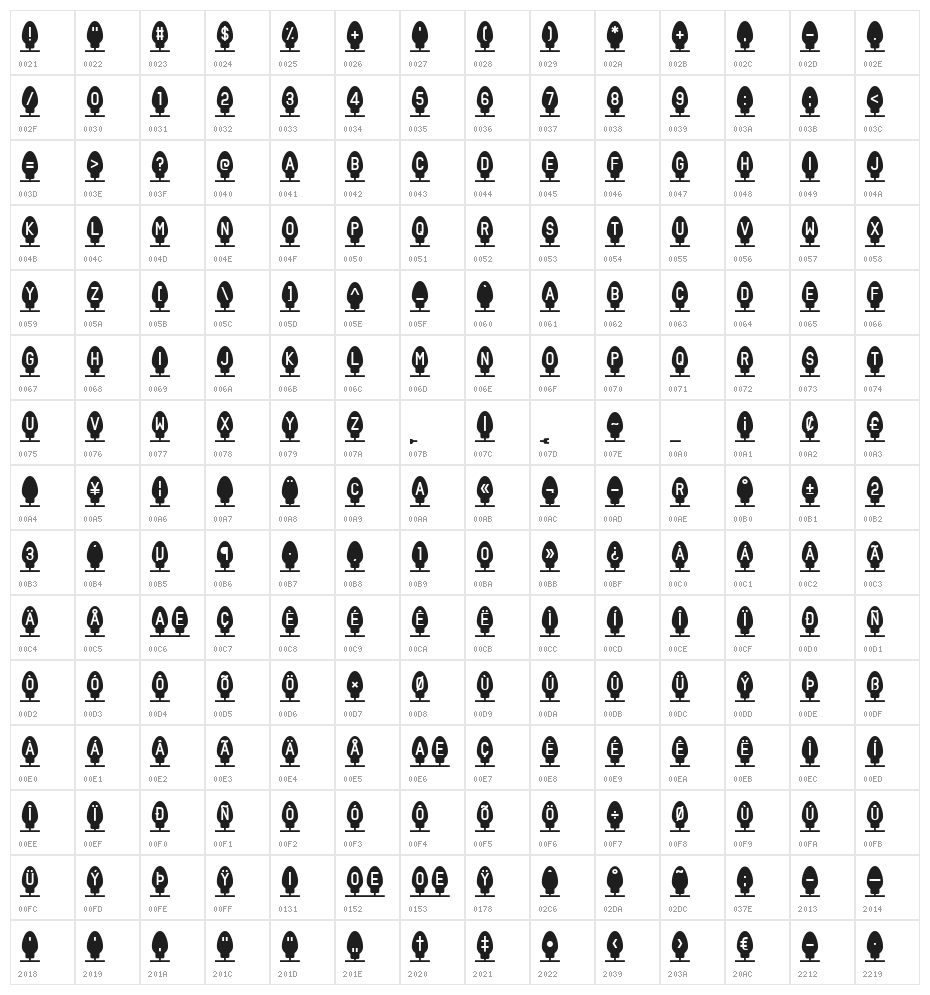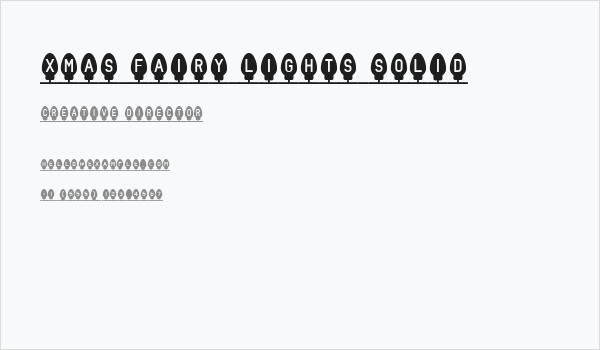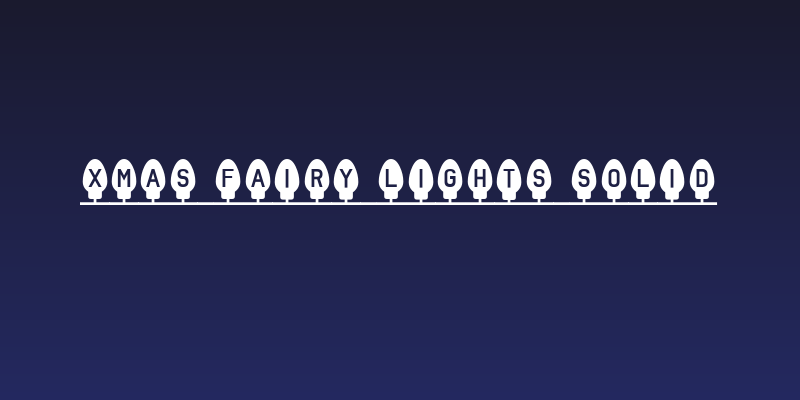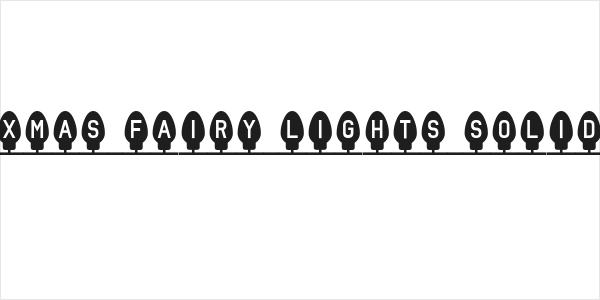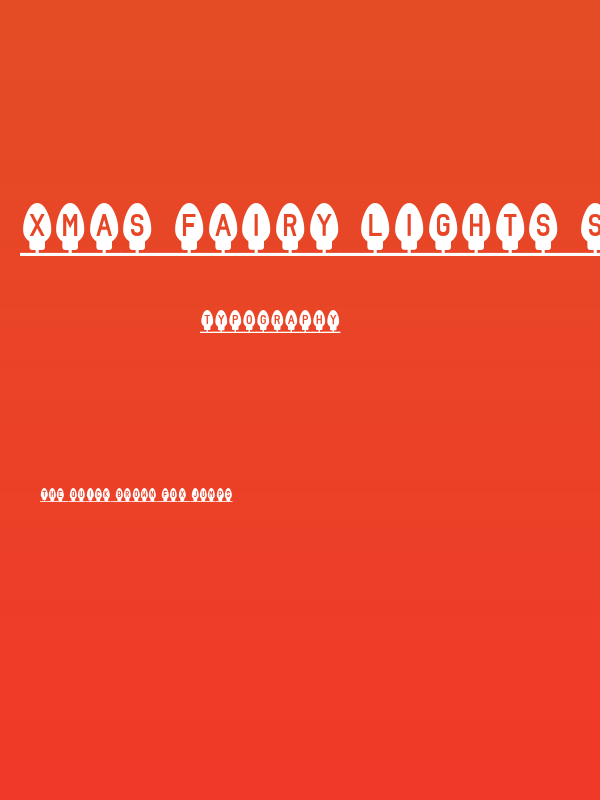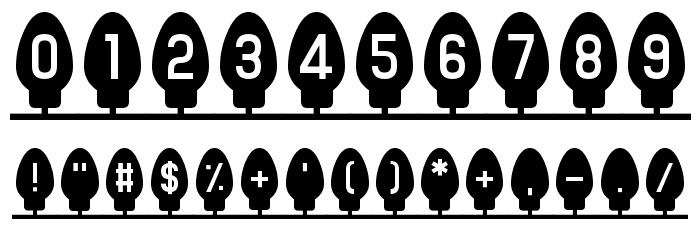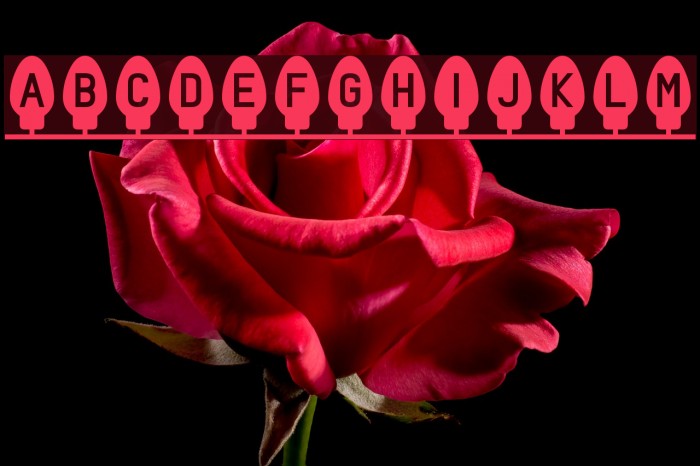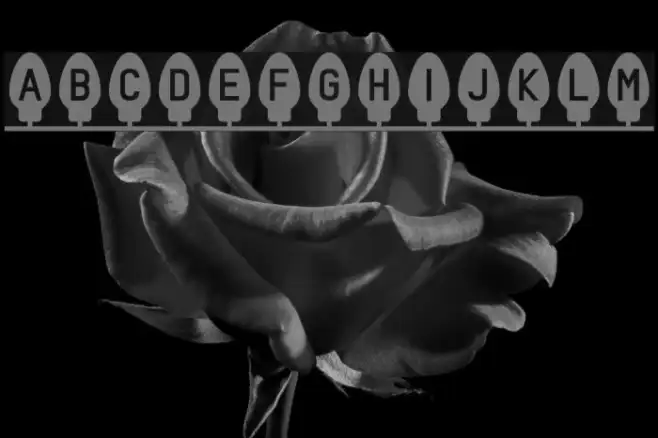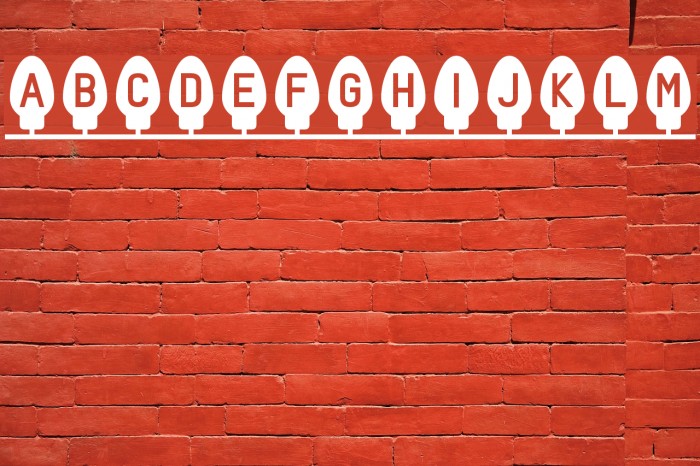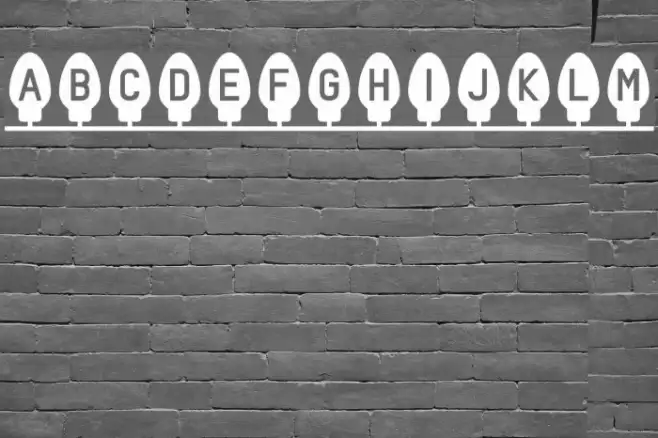
Xmas Fairy Lights Solid Font
Xmas Fairy Lights Solid Description
This font features a playful and festive design, with each character encased in a bulbous shape reminiscent of Christmas tree lights. The letters are bold and sans-serif, offering a modern and clean look while maintaining a whimsical holiday theme. The uppercase and lowercase letters, along with numbers and special characters, are uniformly styled, ensuring consistency across any text. The unique design makes it stand out, perfect for seasonal projects or decorative purposes.
| Use Case | Headlines, Logos, Decorative text |
| Proposed Projects | Ideal for holiday-themed posters, greeting cards, festive banners, and decorative signage. |